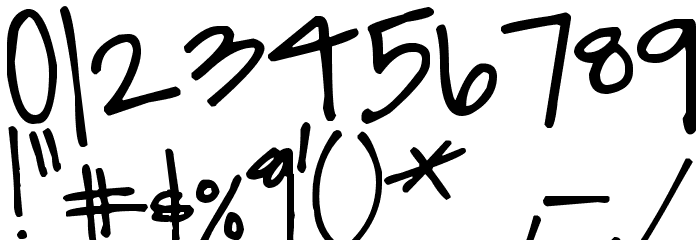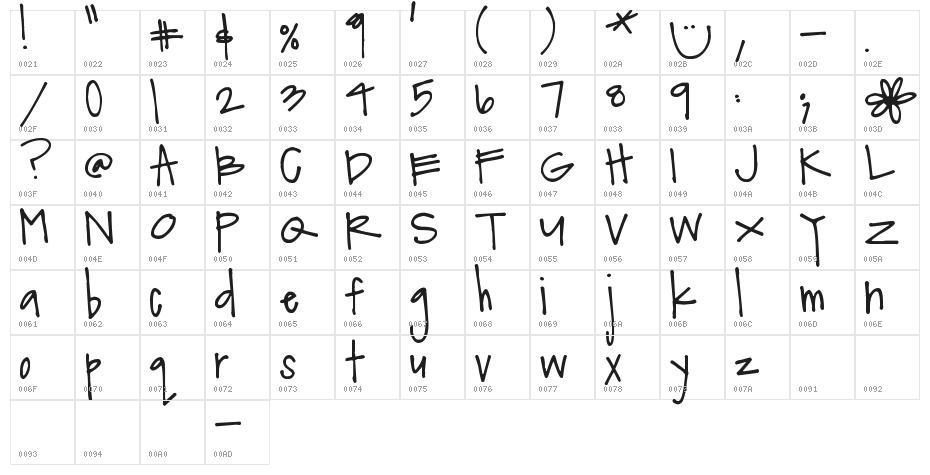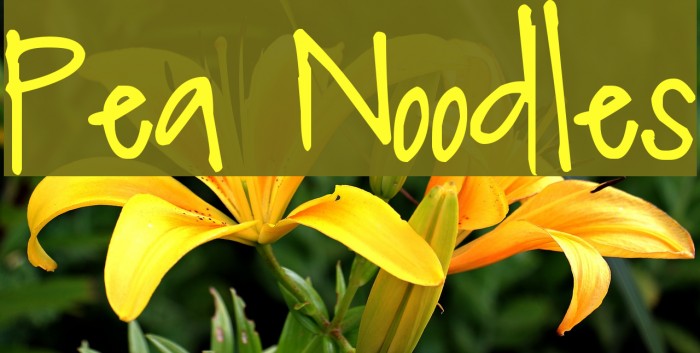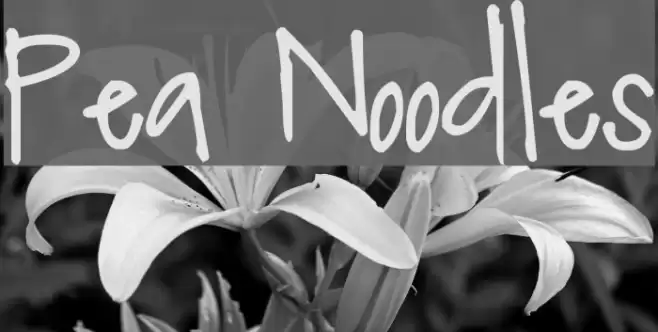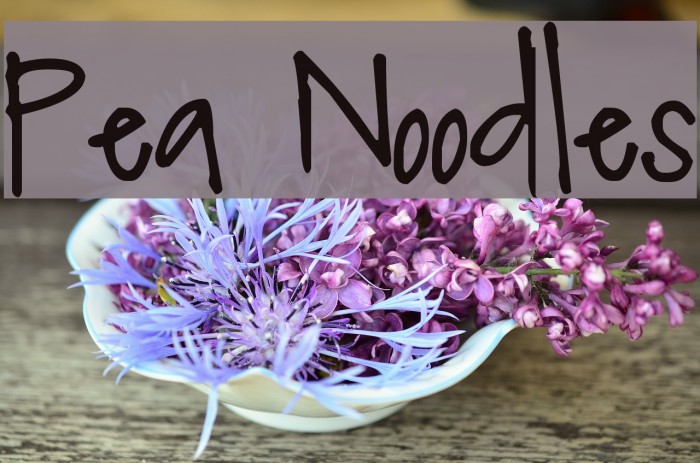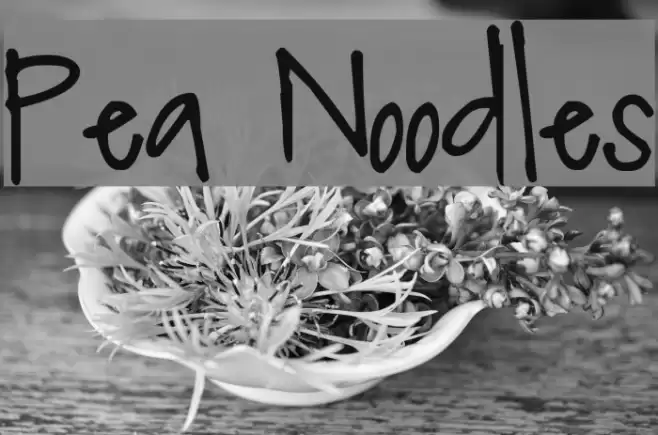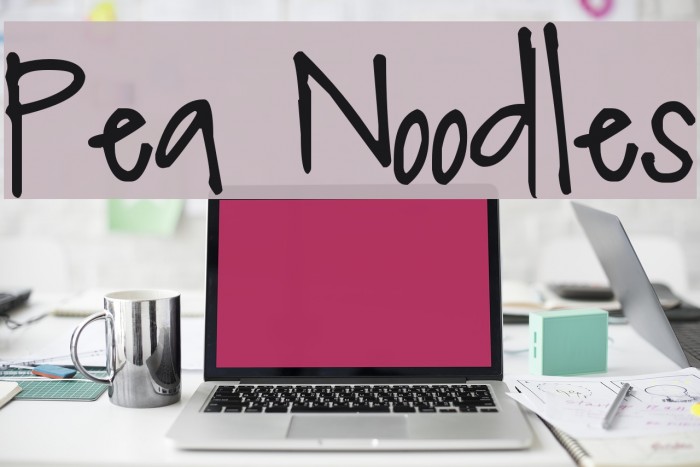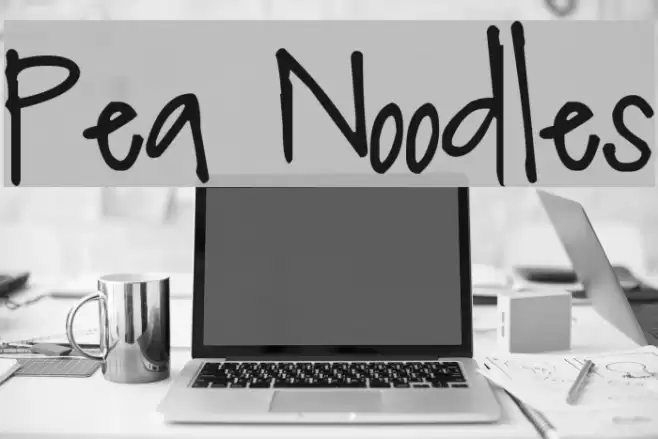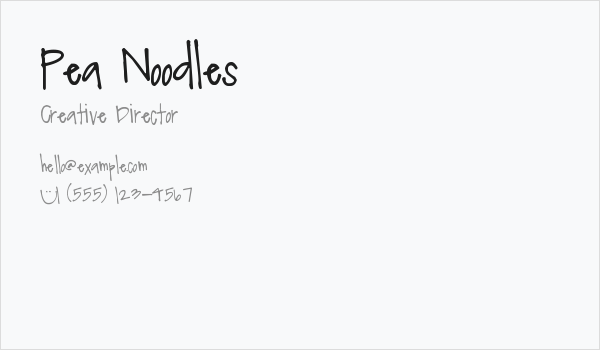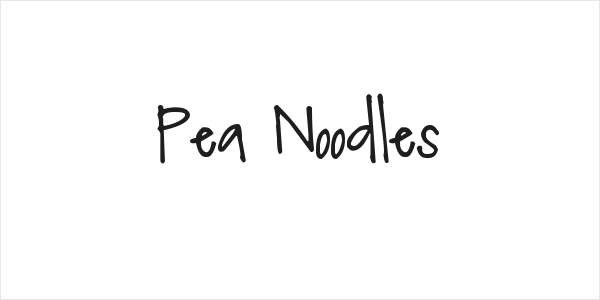
Pea Noodles Font
Pea Noodles Description
This playful and informal font exudes a handwritten charm, characterized by its irregular strokes and casual style. The letters are slightly tilted, giving a dynamic and lively appearance. The uppercase and lowercase letters maintain a consistent style, with rounded edges and a slightly uneven baseline that enhances its handwritten feel. The numerals and special characters follow the same whimsical design, making it suitable for creative and informal projects. Its unique personality makes it stand out, adding a personal touch to any design.
| Proposed Projects | Ideal for greeting cards, children's books, casual invitations, and playful branding. |